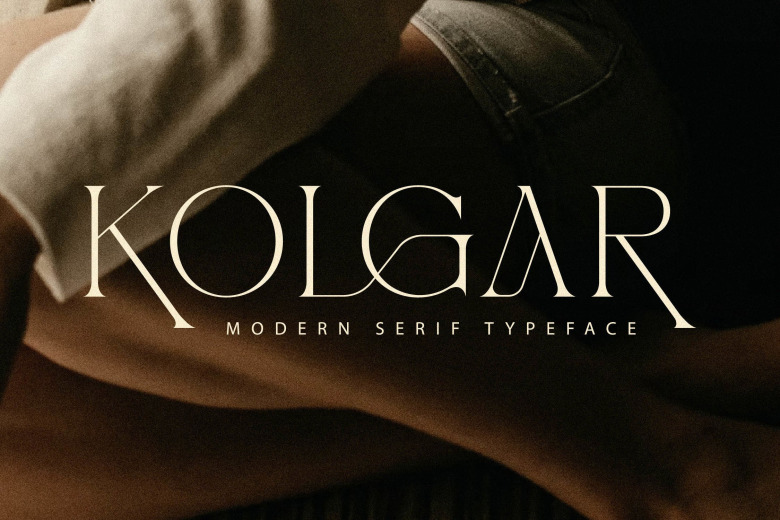
Kolgar Font
KOLGAR is a modern and classy serif font with a modern twist. Whatever the topic is, your favorite fonts’ library should contain this font. Because It is possible to elevate any creation to the new level with it.
Kolgar Serif Font